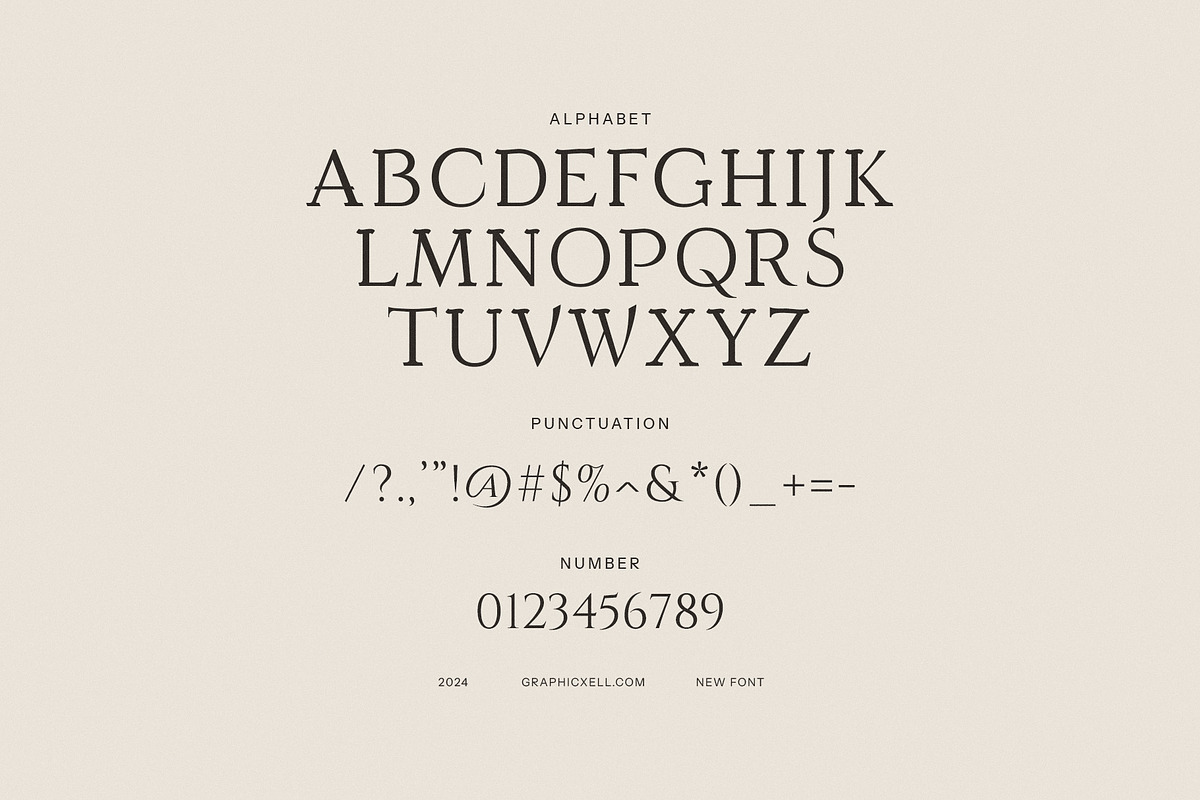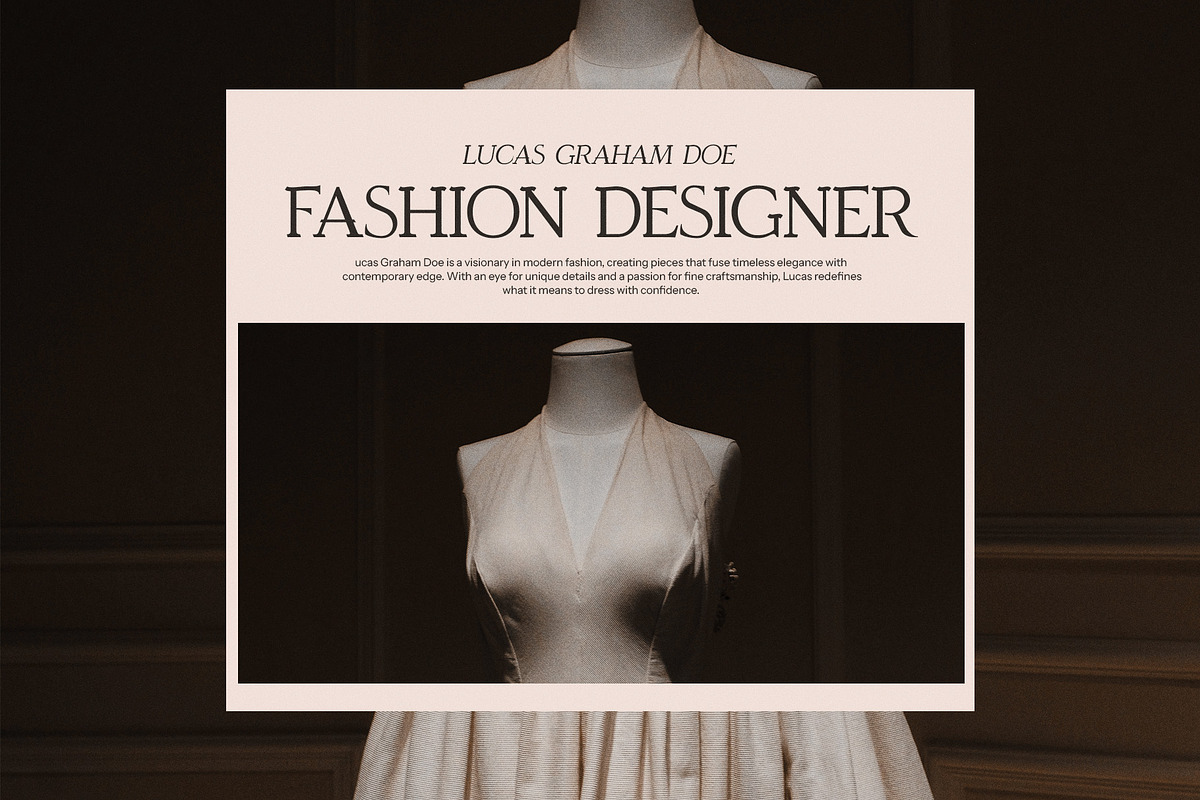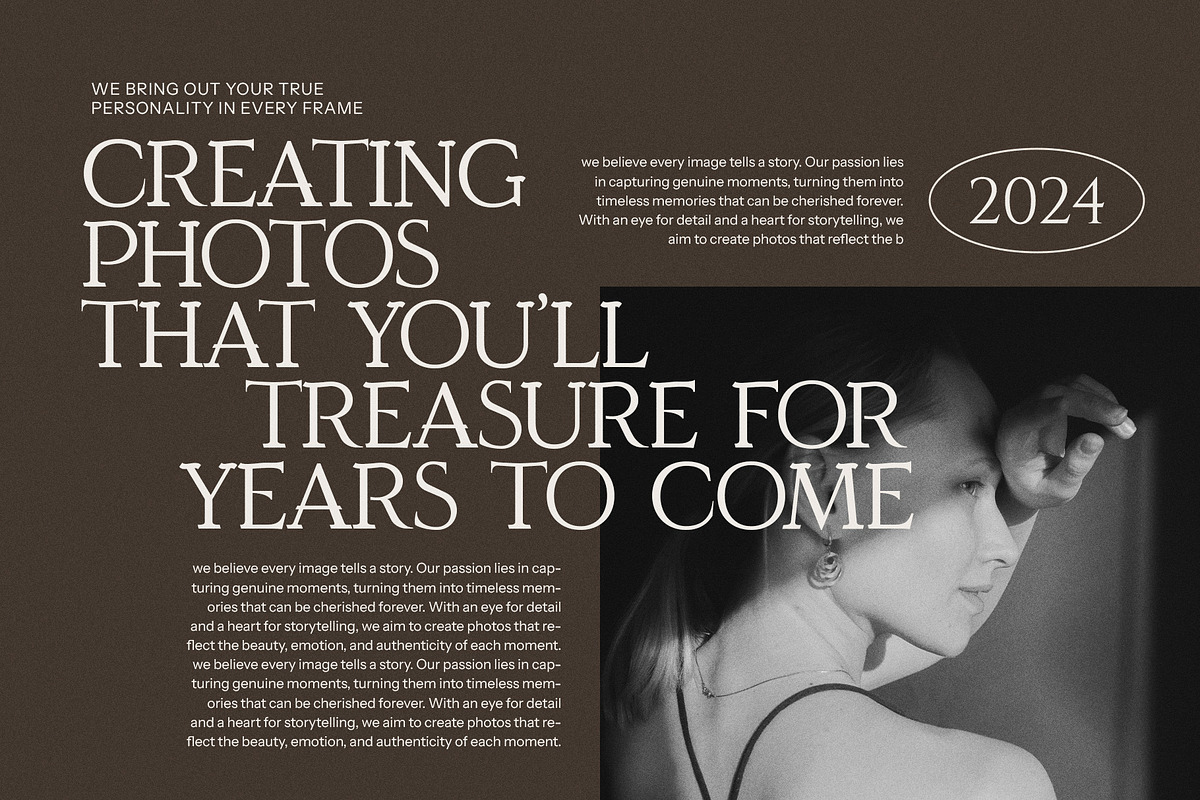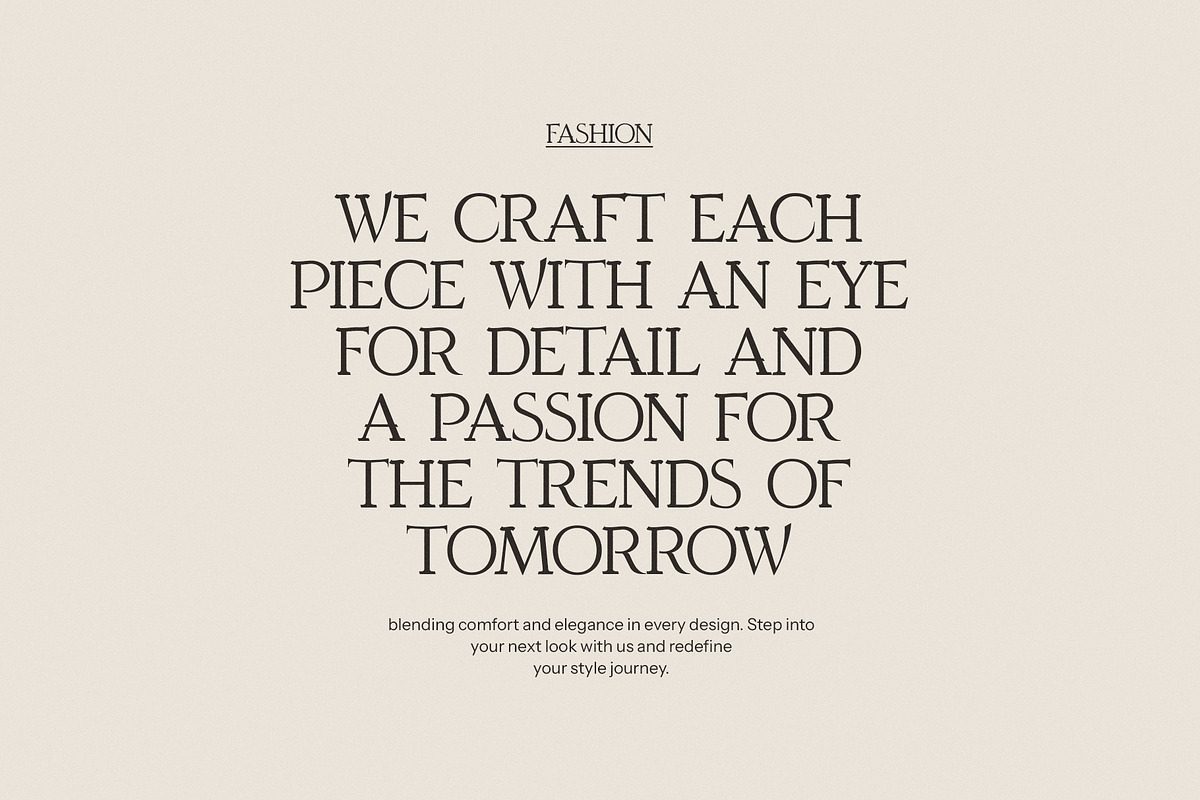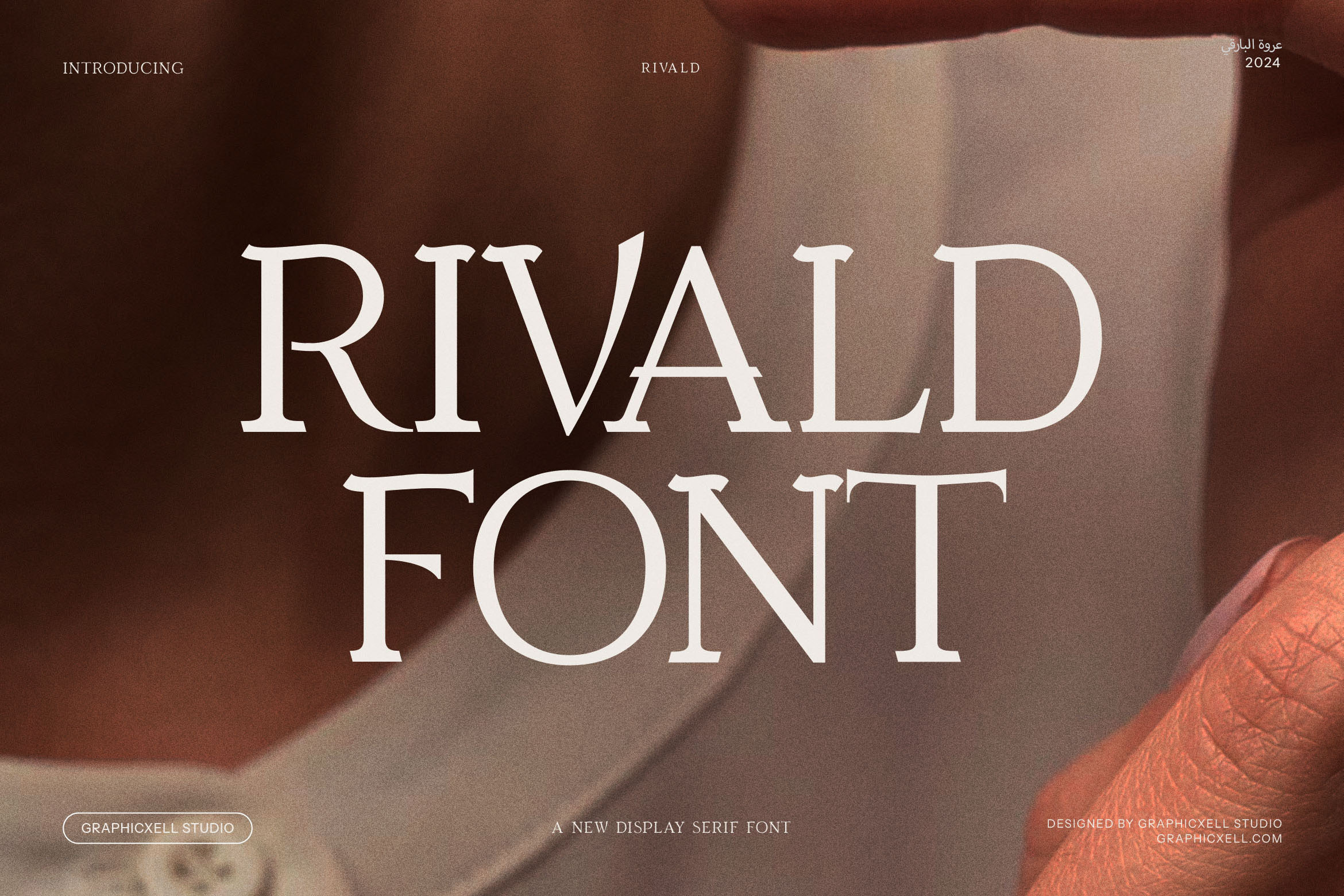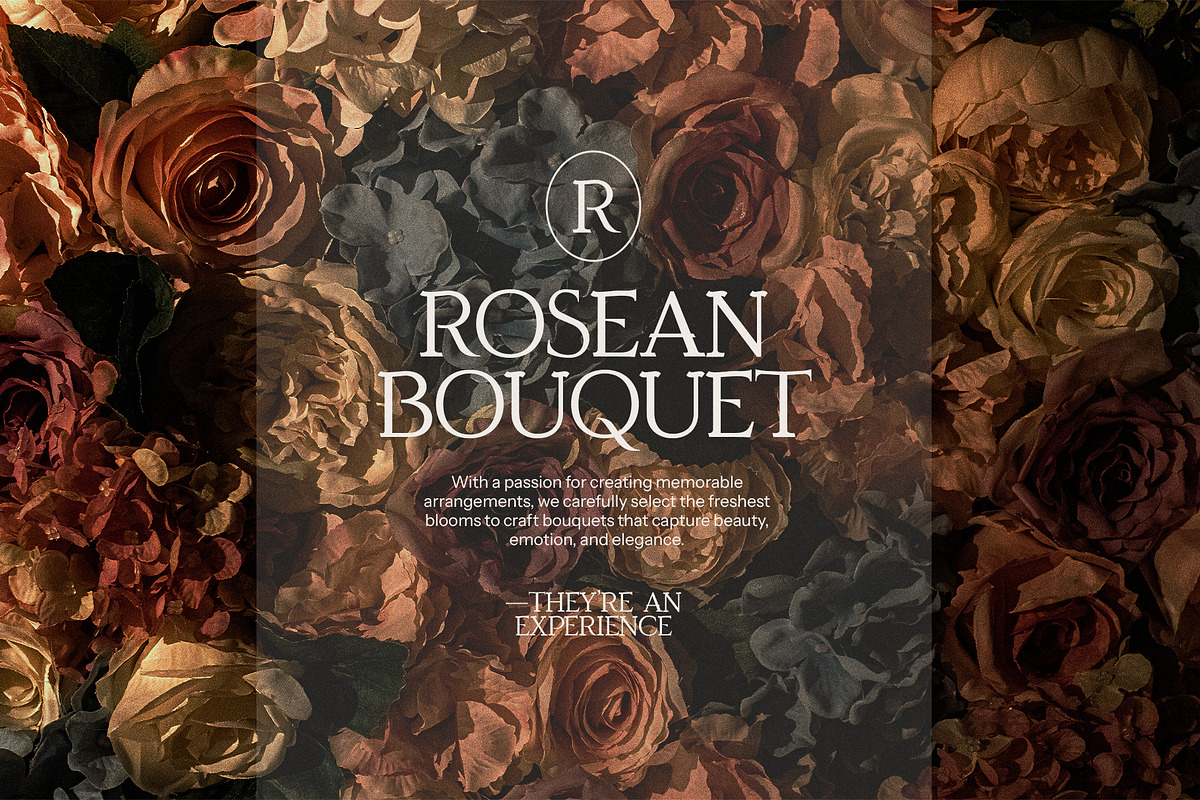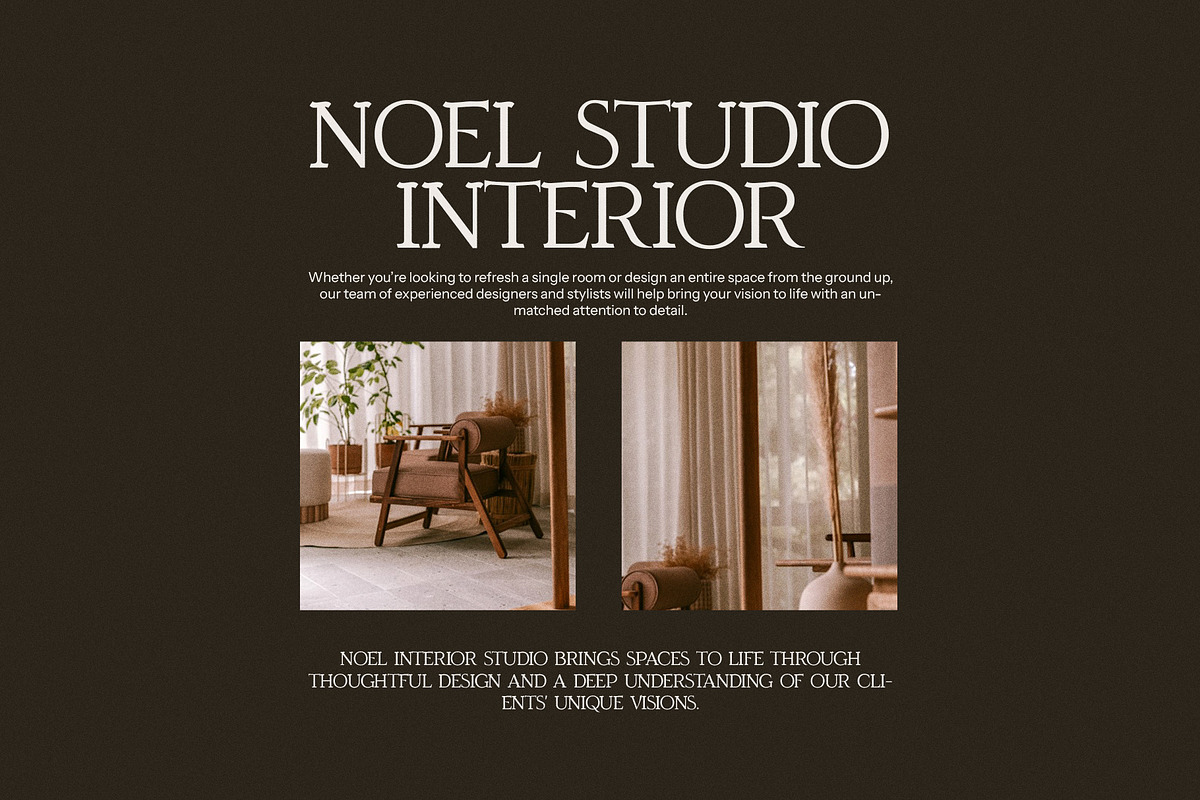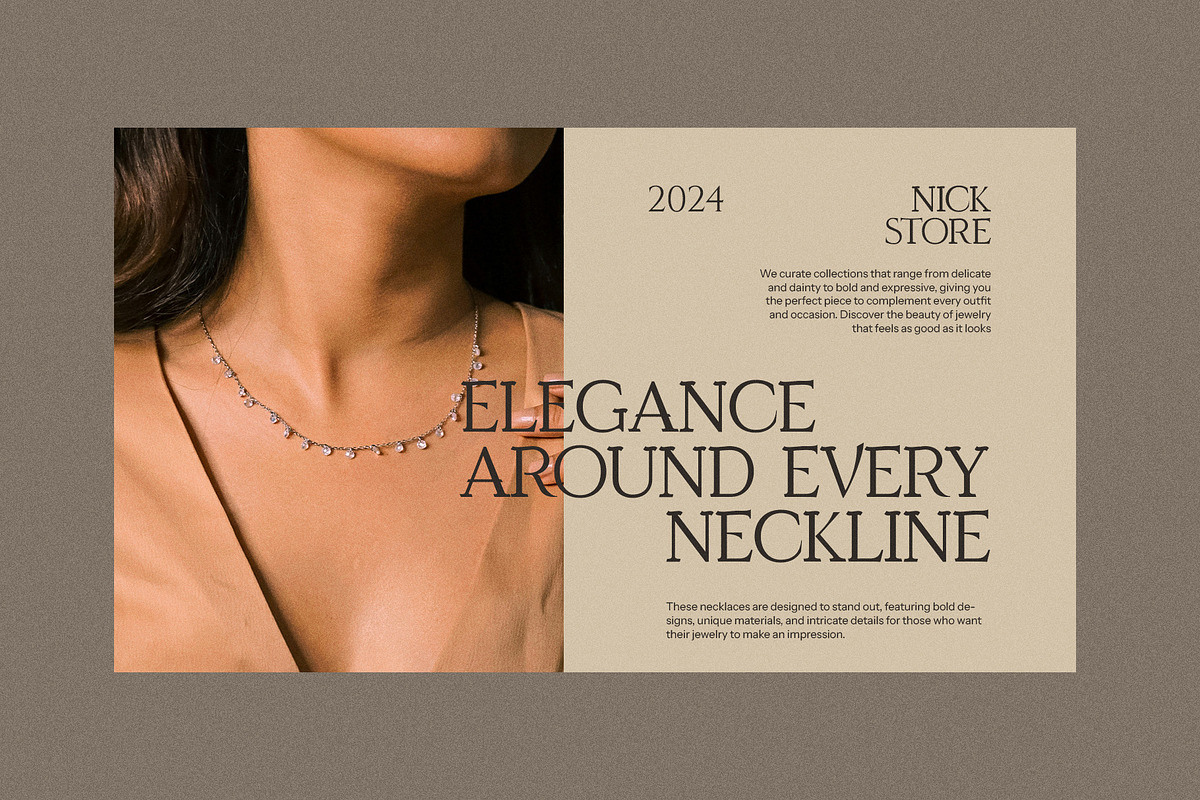
Rivald - Elegant Serif Font
Introducing Rivald, a modern serif font that elegantly blends vintage charm with contemporary design sensibilities. This distinctive typeface is a harmonious fusion of classic serif features and sleek, modern lines, making it an ideal choice for creative projects that demand both timeless appeal and forward-thinking style.
With its refined curves and sharp serifs, Rivald speaks to the past while confidently stepping into the future. The font's balanced proportions and elegant forms give it a sophisticated presence, making it perfect for high-end branding, luxury packaging, and editorial layouts. Whether used in a logo design, magazine spread, or product packaging, Rivald exudes both class and personality.
Its versatility shines through in a wide range of applications, from minimalist modern websites to nostalgic food packaging, where it adds a touch of vintage authenticity without feeling dated. The font’s unique character shapes and fluid letterforms bring an artistic quality to any project, whether you’re designing for fashion, lifestyle, or culinary industries.
Rivald captures the essence of both old-world craftsmanship and contemporary design trends. It strikes the perfect balance between elegance and modernity, offering a refined yet approachable look. Ideal for headlines, subheadings, and body text alike, this font will bring distinction and professionalism to any creative endeavor, allowing your brand to stand out with confidence and style. Whether for print or digital media, Rivald is a timeless typeface that ensures your designs make a lasting impression.